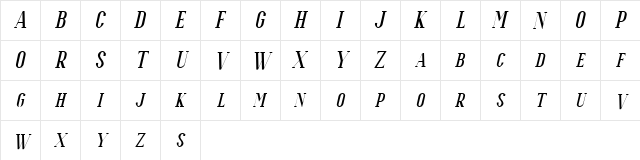
Espoir Serif Free Regular
Design Context for Espoir Serif Free Typeface
Espoir Serif Free brings classic typographic sensibility to the table — its serifs and measured letterforms reflect centuries of print heritage.
Pro Tip: Set Espoir Serif Free with slightly loose tracking in headlines to let each letterform's detail read clearly at display sizes.